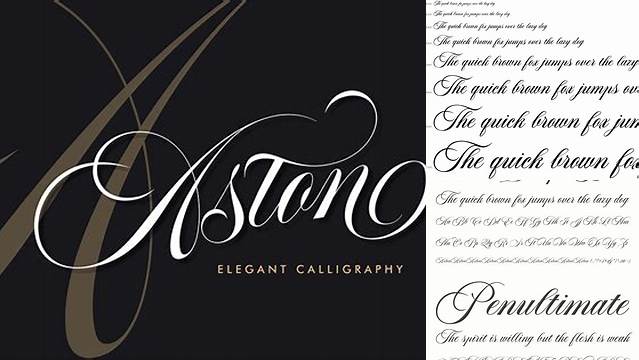
Free Aston Script Font Generator: Create Elegant Text Online
Hey everyone! Are you looking for a way to spice up your designs with a touch of elegance and personality? Well, you've come to the right place! Today, we're diving deep into the wonderful world of the Aston Script Font Generator, and the best part? It's totally free to use! Get ready to explore how this fantastic tool can transform your projects, from crafting stunning invitations to creating eye-catching social media graphics. Let's get started and unlock your creative potential!
1. What is the Aston Script Font Generator? A Beginner's Guide
Okay, so first things first: What exactly is the Aston Script Font Generator? In a nutshell, it's a digital tool that allows you to create custom text in the Aston script font. This font is known for its beautiful, flowing lines and elegant aesthetic, making it perfect for projects that require a touch of sophistication. Unlike some other tools, the Aston Script Font Generator is designed to be user-friendly, even if you're not a design expert. It provides an intuitive interface where you can input your text, customize its appearance, and download the final product for use in your projects. The generator's purpose is to simplify the process of incorporating the Aston script font into your designs without the need for complex design software or the hassle of manually creating text effects. This means more time spent on creativity and less time getting bogged down in technical details. One of the key advantages of using a generator is the ability to experiment with different text styles and visual elements quickly. You can preview your text in various sizes, colors, and arrangements before finalizing your design. Furthermore, the Aston Script Font Generator typically provides a variety of options for customization. These might include adjusting the letter spacing, kerning, and even the overall font style to align with your design vision. This level of control enables you to tailor the text to perfectly suit the context and overall aesthetic of your project, giving it a professional finish. Consider the versatility; imagine designing wedding invitations, creating personalized greeting cards, or adding a touch of flair to your brand's logo. The Aston Script Font Generator makes all these possibilities a reality. The power of this tool lies in its ability to bring elegance and style to any project without a significant time or financial investment. Whether you are a seasoned designer or just starting, this generator becomes an indispensable asset for enhancing your creative process.
3. How to Use the Aston Script Font Generator: Step-by-Step Tutorial
Okay, let's get down to the nitty-gritty! How exactly do you use the Aston Script Font Generator? Don't worry, it's super easy! Here’s a step-by-step guide to help you get started:
Input Your Text: Once you've chosen your generator, the first step is to input the text you want to convert. Usually, you'll find a text field where you can simply type or paste your desired words or phrases. Pay close attention to the character limits, if any, as this will ensure you are using the tool to its fullest. This is the moment to craft the words that will define your design. Take your time to consider what you want to communicate with your text; from a simple greeting to a call to action for a brand. This part of the process will set the foundation of your designs.
Customize Your Design: Next comes the fun part: customizing your design! Most generators will give you options to adjust the size, color, and spacing of your text. You may be able to select the font size, set different colors from a color palette, and adjust the letter spacing or kerning to get the perfect look. Take advantage of any preview features the generator offers to visualize how your customizations affect your text. Play around with various options, and consider how these changes align with your overall design goals.
Preview and Refine: Before downloading, it's essential to preview your design. This is where you’ll see the final result and ensure it meets your expectations. Most generators provide a real-time preview, allowing you to see how your text will appear in the Aston script font. Examine every element: the overall style of the font, the alignment, the colors, and any special effects added. If anything looks off, now is the time to adjust the settings. This stage is about making sure everything is perfect before you take your design to the next level.
Download Your Creation: Once you’re happy with the preview, it’s time to download your creation. The generator will usually provide a download option, often in popular formats like PNG or SVG. Choose the format that best suits your needs. PNG files are ideal for images with transparent backgrounds, which can easily integrate into various design contexts. SVG files are vector-based, meaning they can be scaled without losing quality, which is especially beneficial for logos and designs.
Use in Your Projects: Now, you can use your Aston script font text in various projects, such as invitations, social media graphics, logos, and much more. Incorporate your text into your preferred design software, like Adobe Photoshop or Canva. From the simplest layouts to the most complex compositions, your personalized text will add an elegant and professional touch to every design.
4. Aston Script Font Generator Features: What to Look For
When you're on the hunt for the perfect Aston Script Font Generator, it's important to know what features to look for. These features can make all the difference in terms of usability and the final result. Here are some key features to consider:
15. Free Aston Script Font Generator for Greeting Cards
Greeting cards deserve a special touch, and the Aston Script Font Generator allows you to add a personal and elegant flair. Whether it's a birthday, holiday, or a simple